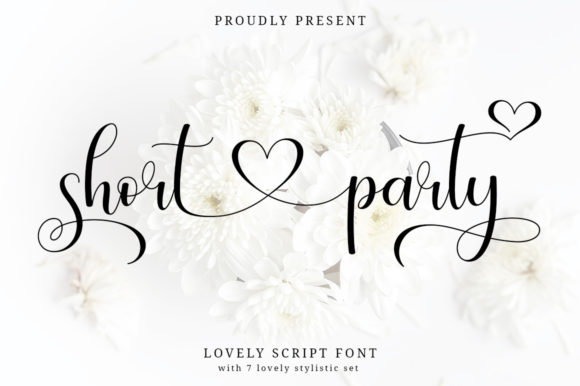
Introducing Short Party Font, the ultimate choice for adding a touch of romance and sweetness to your designs! Crafted by the talented Typesthetic Studio, this captivating calligraphy typeface will make your words dance along the baseline, creating an enchanting visual experience for your audience.
Short Party Font is not just your ordinary font – it is a work of art that evokes emotions and tells a story. Its elegant and graceful strokes will transport your audience to a world of love and beauty, making it the perfect choice for any project that requires a touch of romance.
With its PUA encoding, Short Party Font offers you limitless possibilities. Access all the beautiful and intricate glyphs and swashes effortlessly, enhancing the artistic flair of your designs. Whether you're designing wedding invitations, love letters, or branding materials for a business plan, this font will elevate your creations and leave a lasting impression.
Picture this: your wedding invitation beautifully adorned with the delicate and flowing characters of Short Party Font. The moment your guests set eyes on it, they will be captivated by its charm and elegance. It sets the tone for a magical celebration of love, creating an unforgettable experience for all.
But don't limit yourself to just weddings – Short Party Font is incredibly versatile and can be used for a wide range of projects. Imagine using it for your business plan presentation, adding a touch of sophistication and uniqueness that will make your proposal stand out from the crowd. It exudes professionalism and creativity, leaving a lasting impression on potential clients and investors.